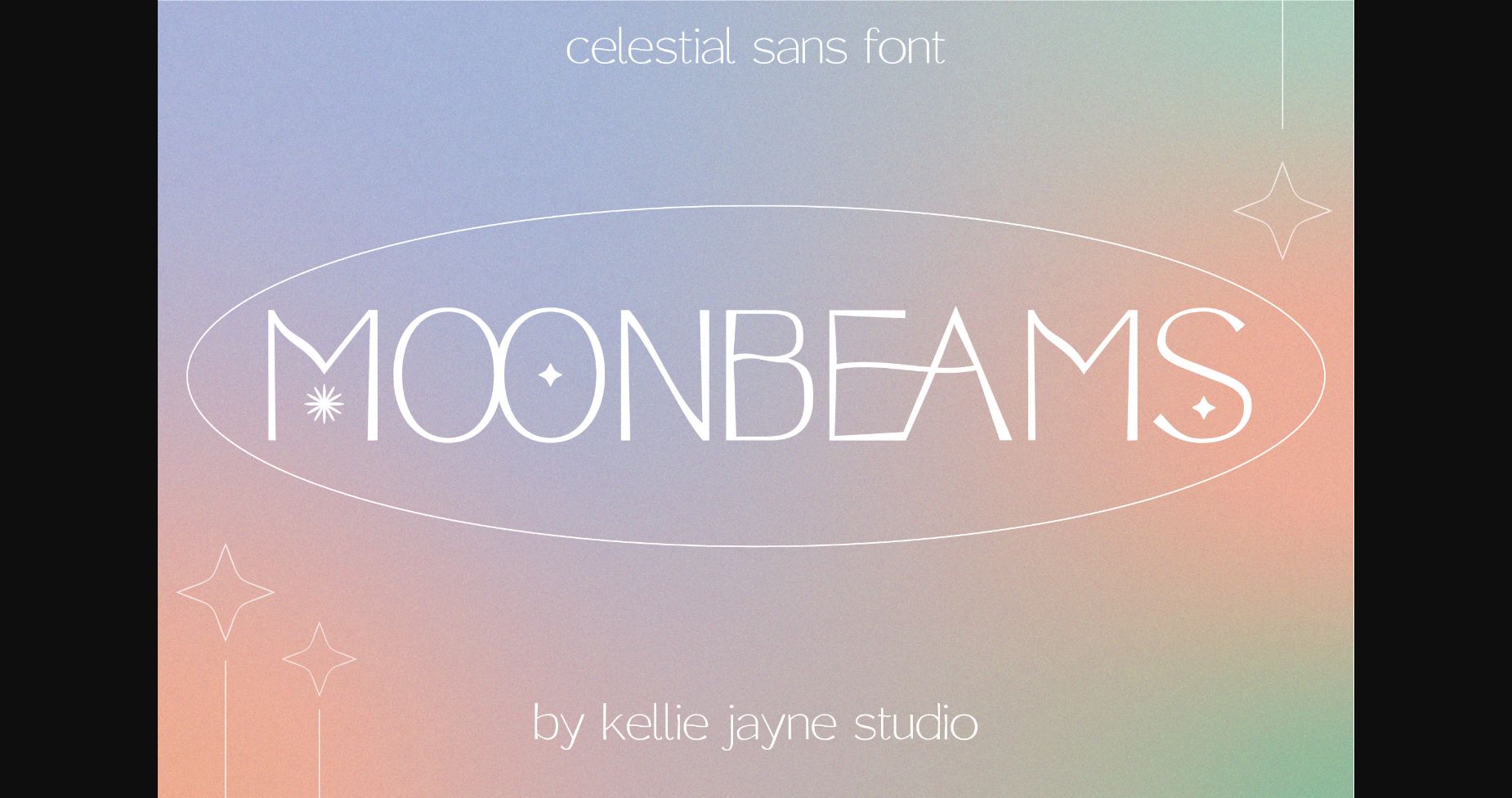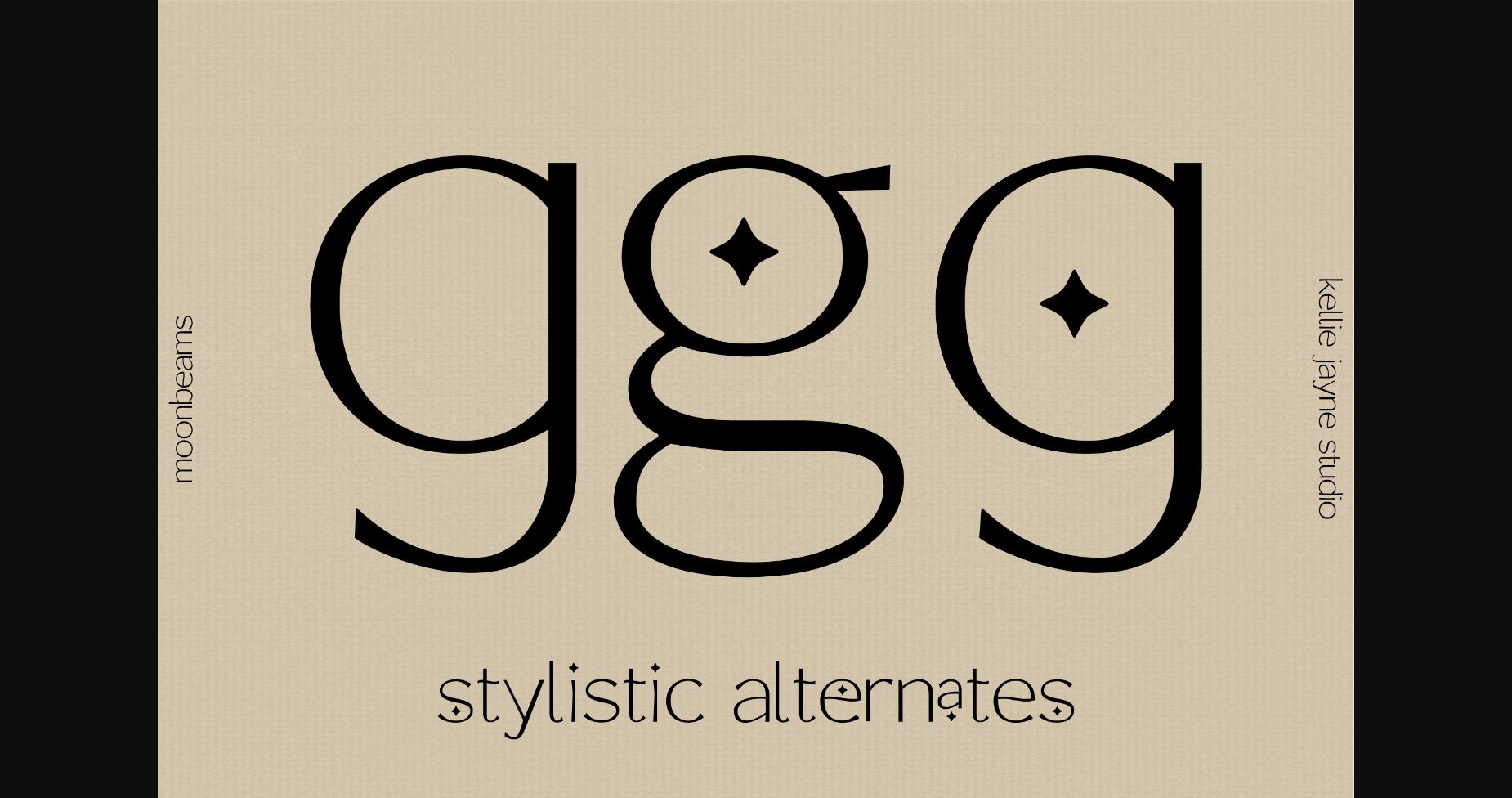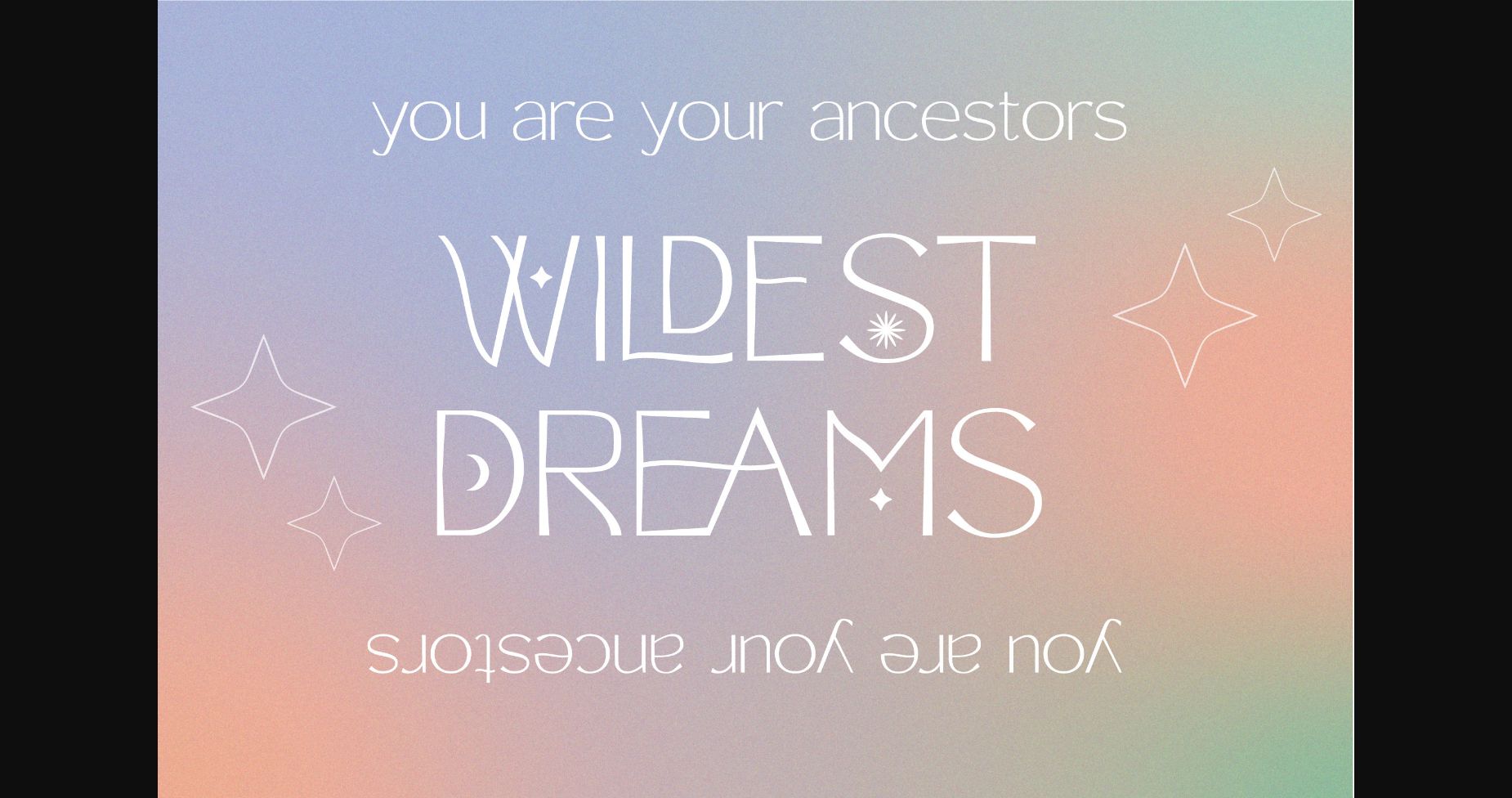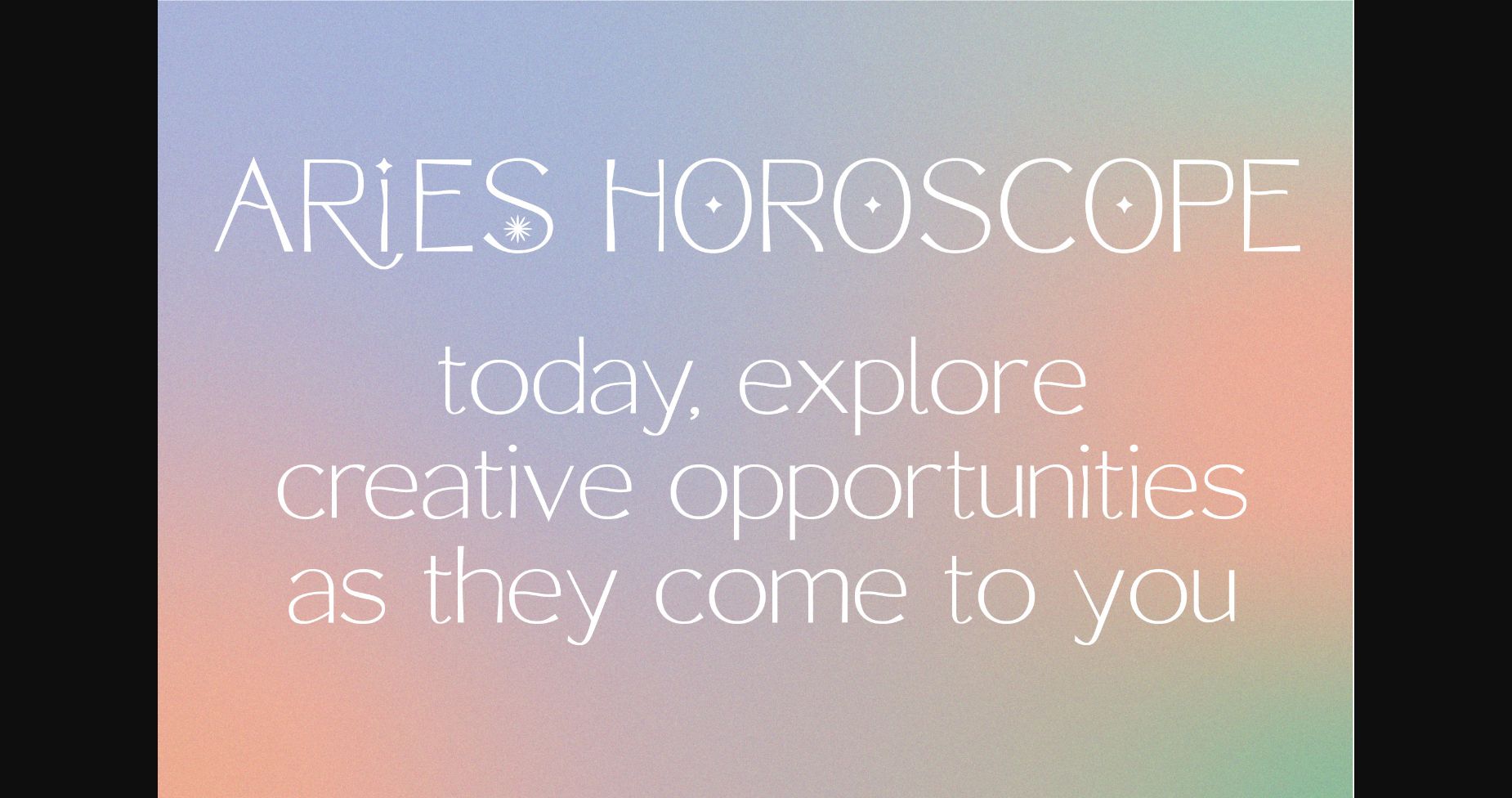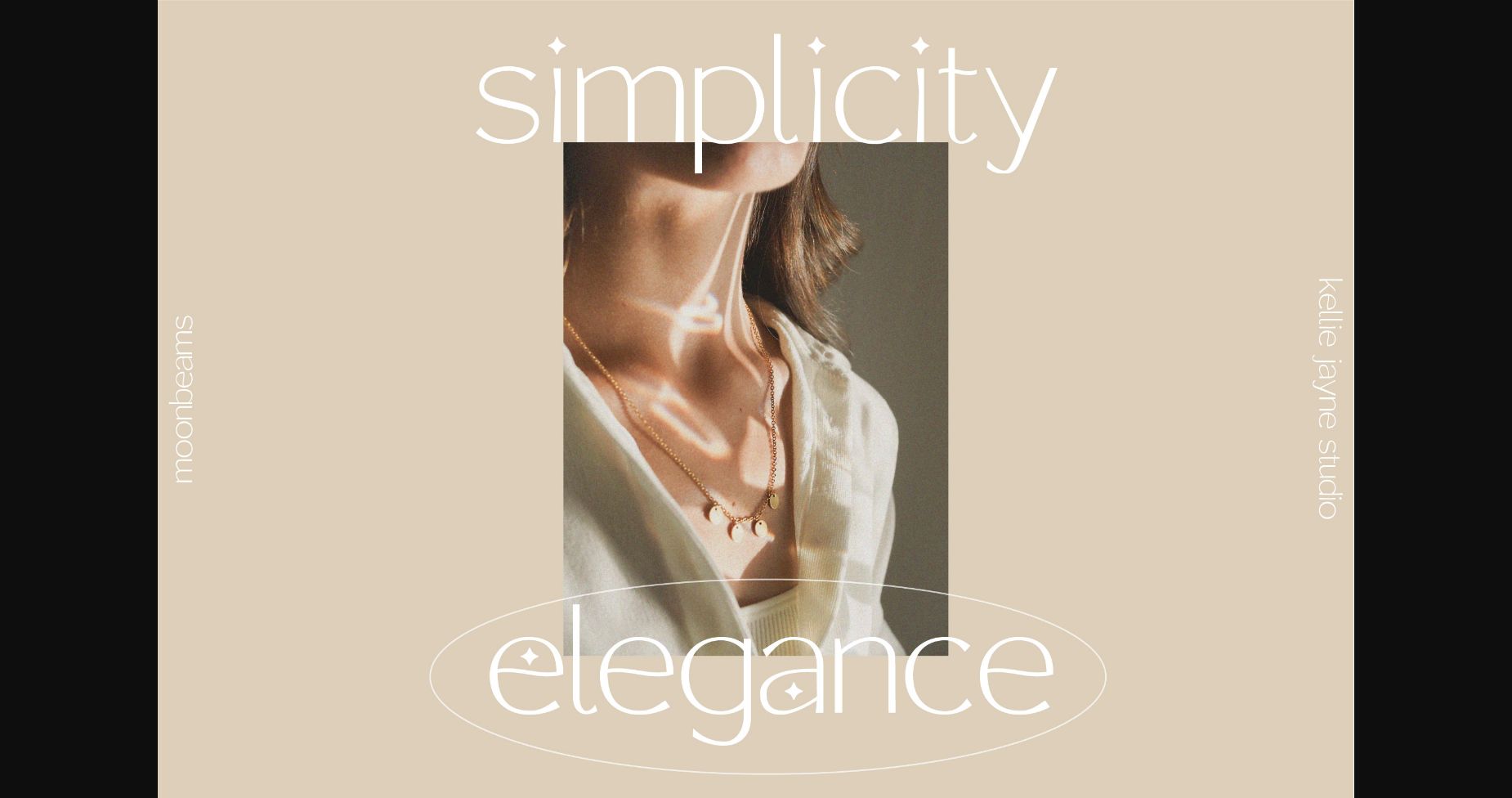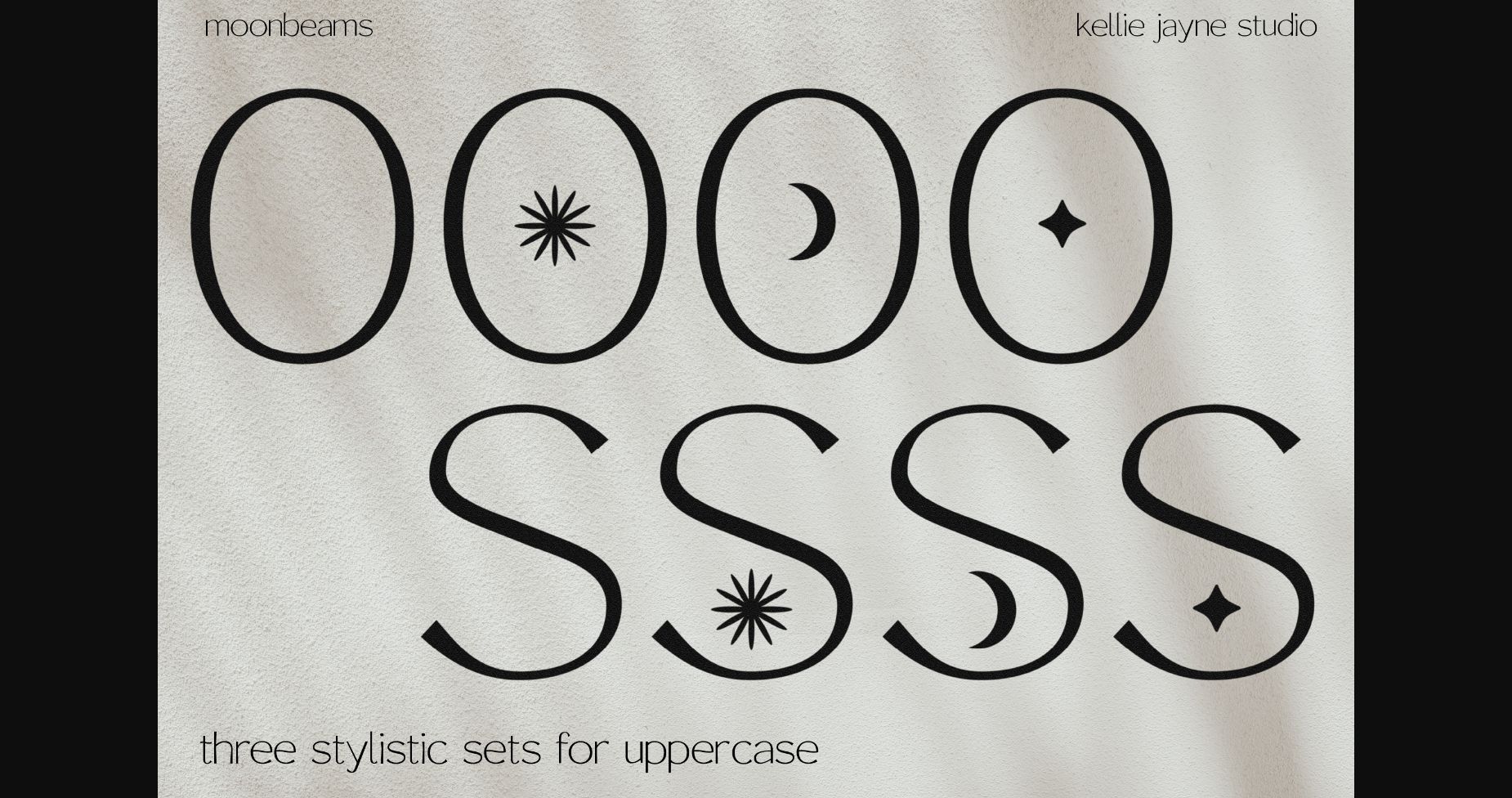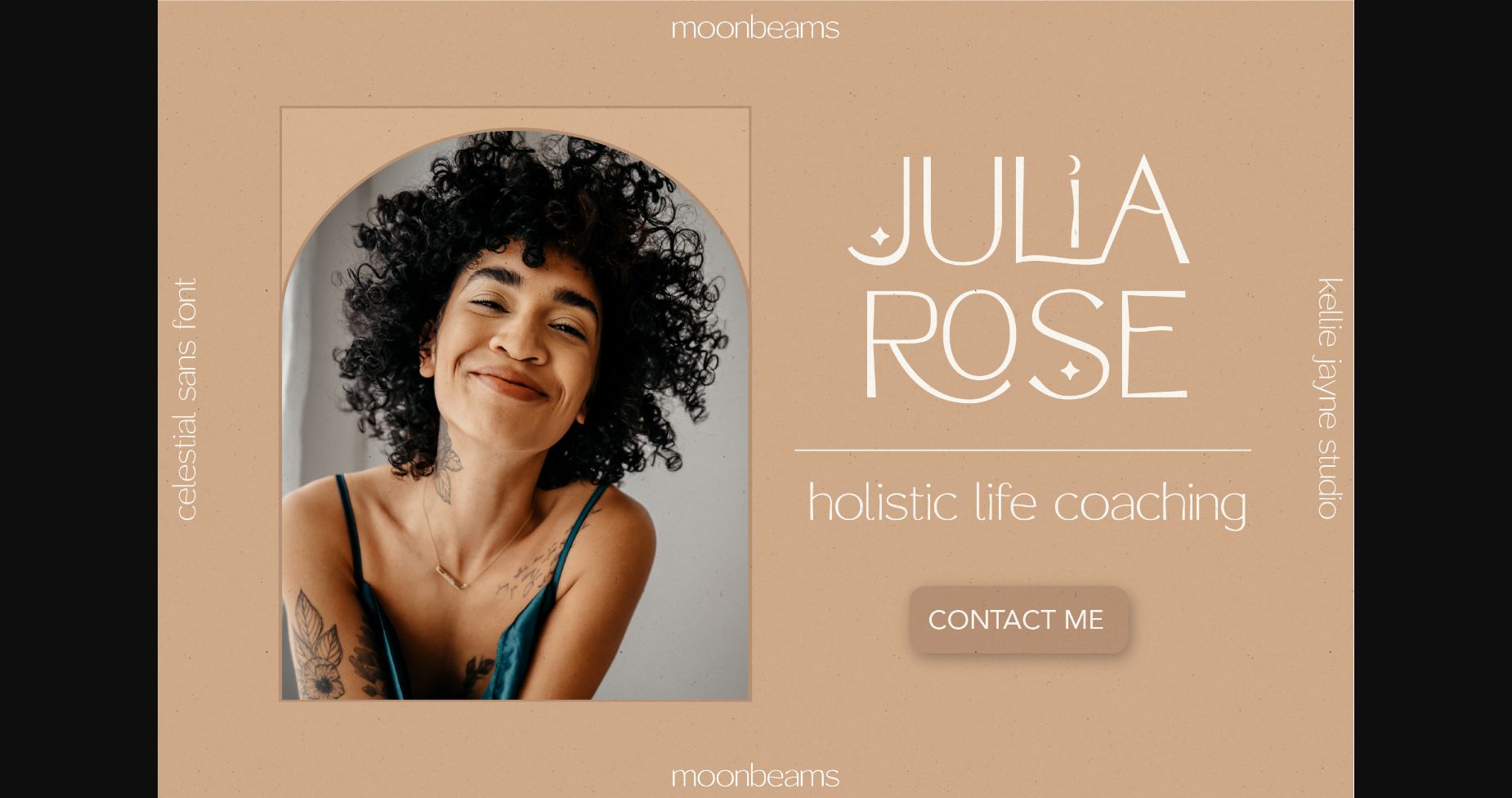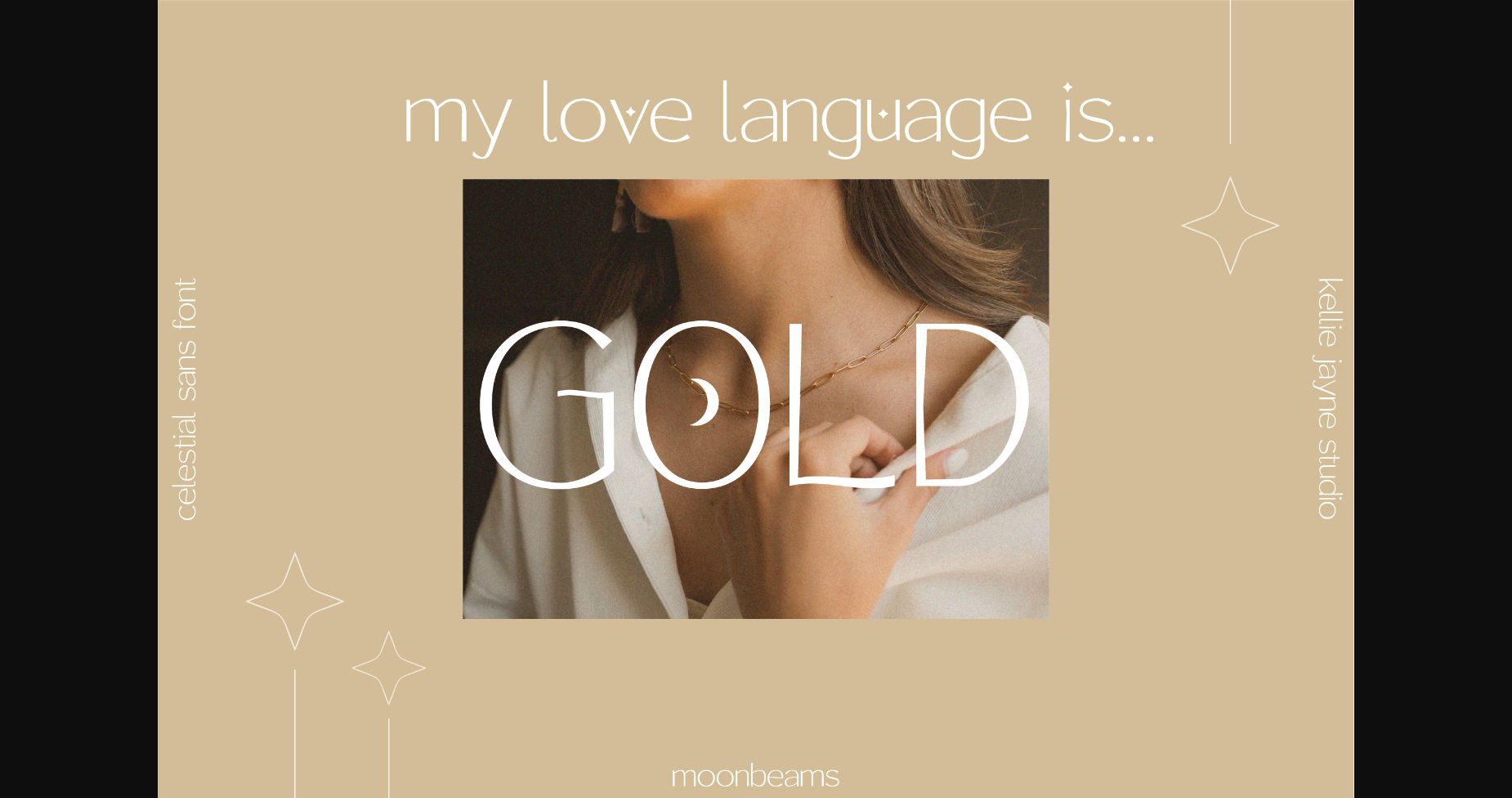
Moonbeams Font
About Moonbeams Font
Moonbeams is a celestial and unique sans serif font with ligatures and stylistic sets featuring stars and moons. Minimalistic but with a funky style, Moonbeams is great for branding, logos, and more.